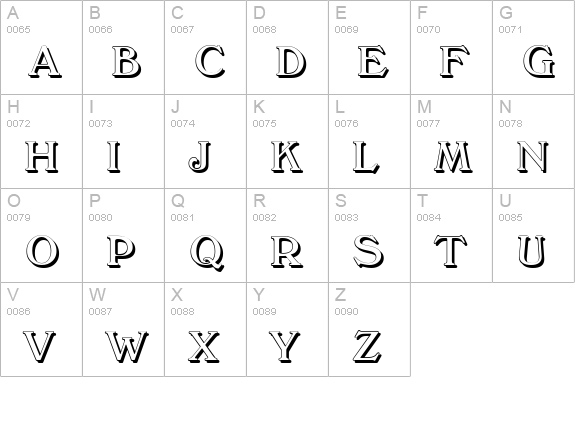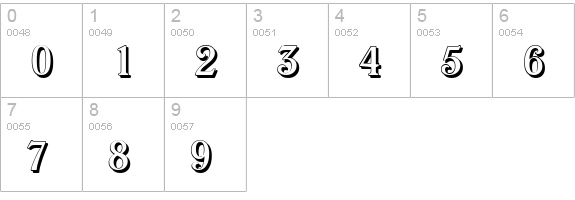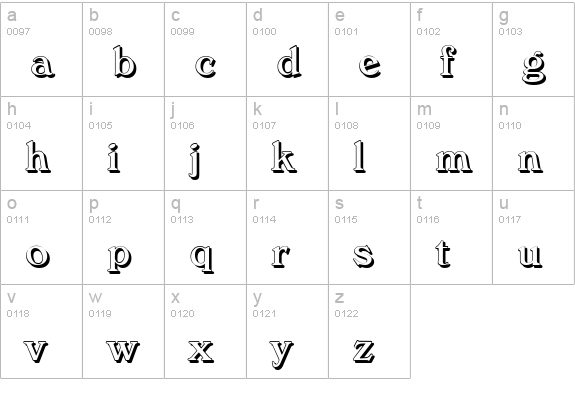
VeronaShadow-Regular Font Details
VeronaShadow-Regular is the standard, neutral variant in the VeronaShadow typeface family \xE2\x80\x94 well suited to general body text, paragraphs, and standard typographic work.
VeronaShadow-Regular is a charming and elegant font that adds a touch of sophistication to any design project. With its delicate serifs and graceful curves, this typeface exudes a sense of timeless beauty. Perfect for invitations, branding, or any creative endeavor that requires a touch of class. Best of all, VeronaShadow-Regular is available for free download at FontsMarket.com. This means you can add this exquisite font to your collection without breaking the bank. Don't miss out on the opportunity to enhance your designs with the beauty of VeronaShadow-Regular. Download it today and let your creativity shine!